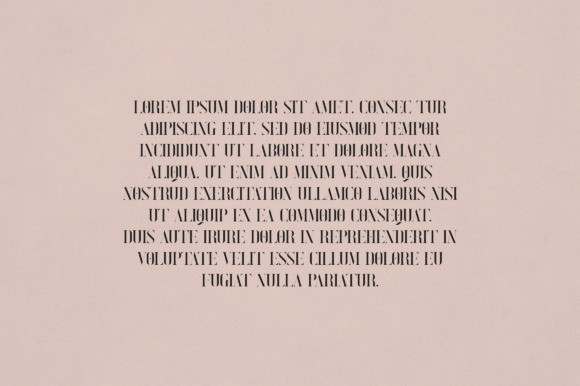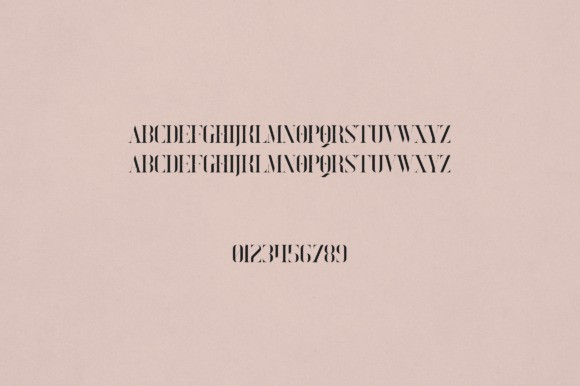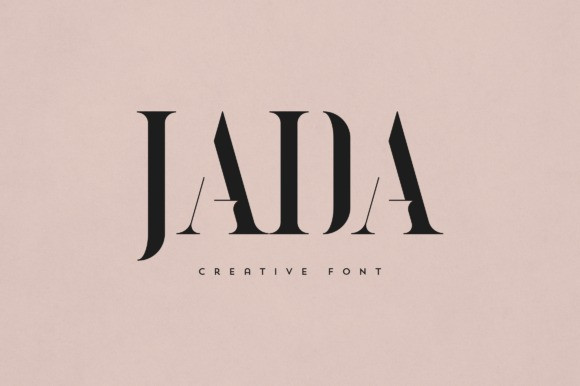
Jada Font
Jada Font is an elegant and versatile serif font that will make your typography truly unique! It will enchant every logo, branding, headline, or plain text!